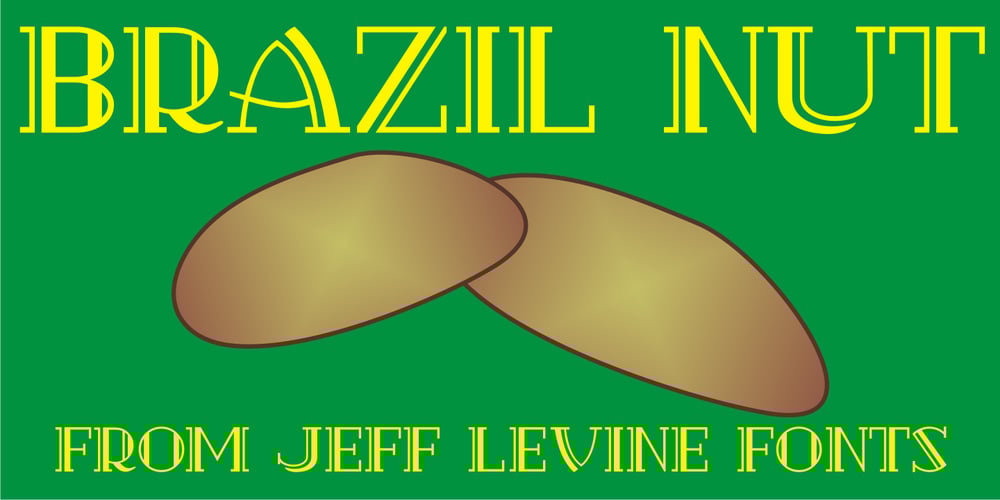
Brazil Nut JNL Font Family was designed by Jeff Levine and published by Jeff Levine. Brazil Nut JNL contains 1 styles and family package options. Brazil Nut JNL comes from hand lettering on some 1920s sheet music from Florenz Ziegfeld’s musical comedy “Rio Rita”.